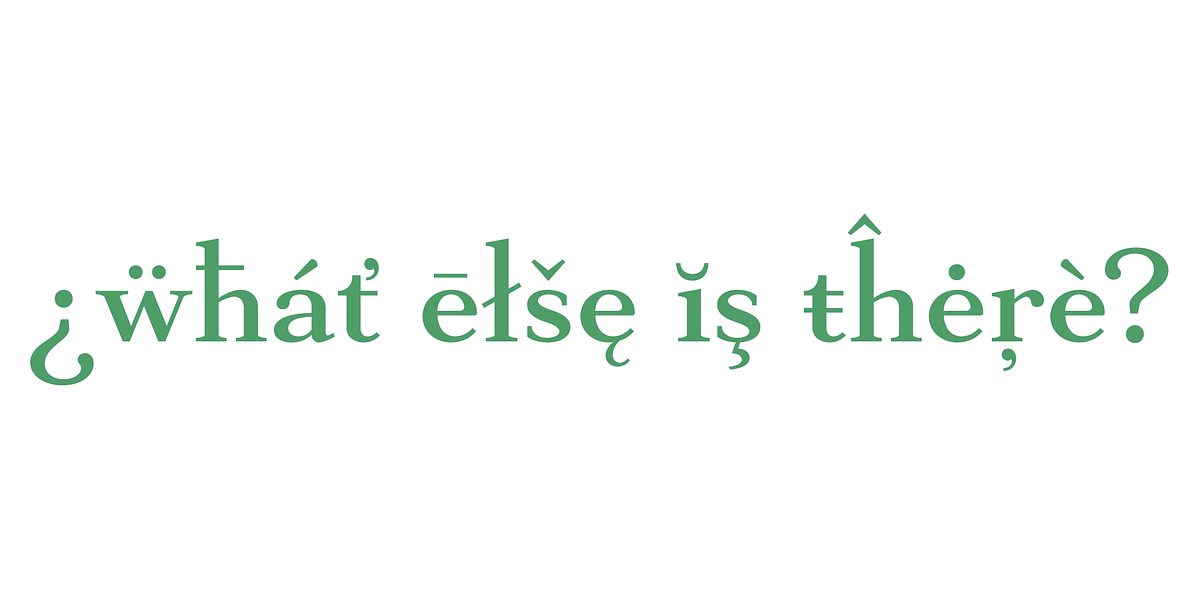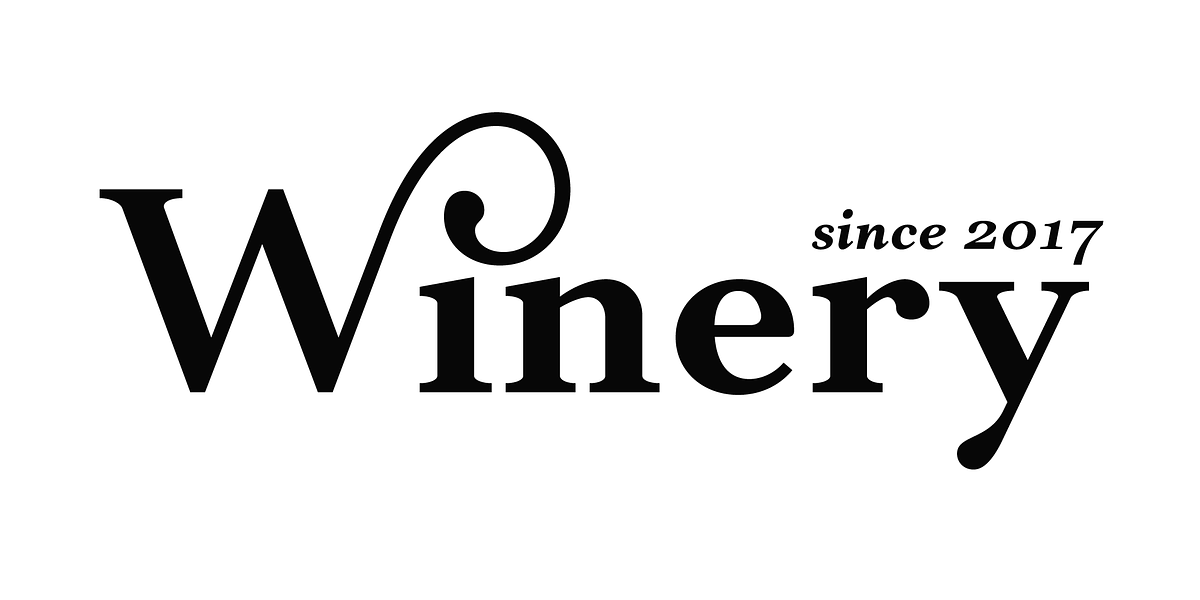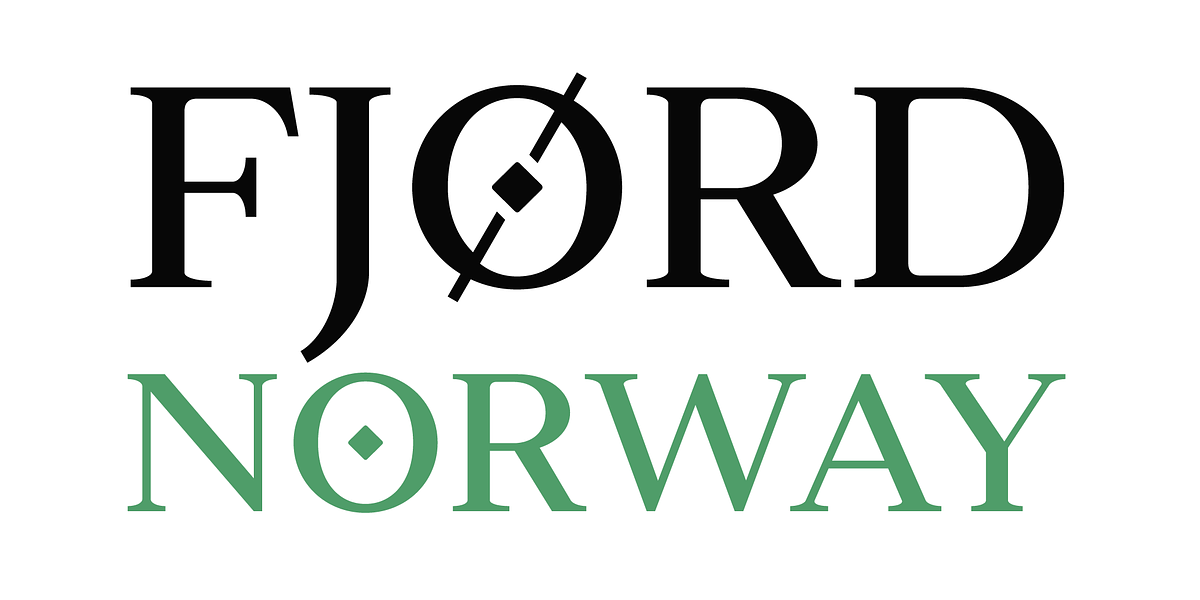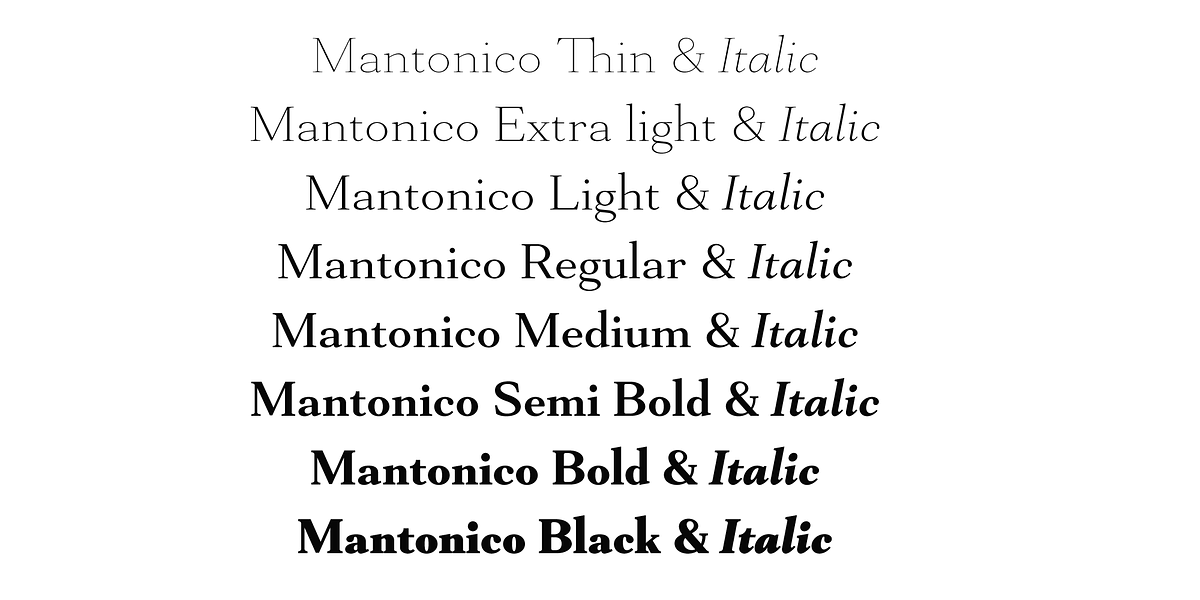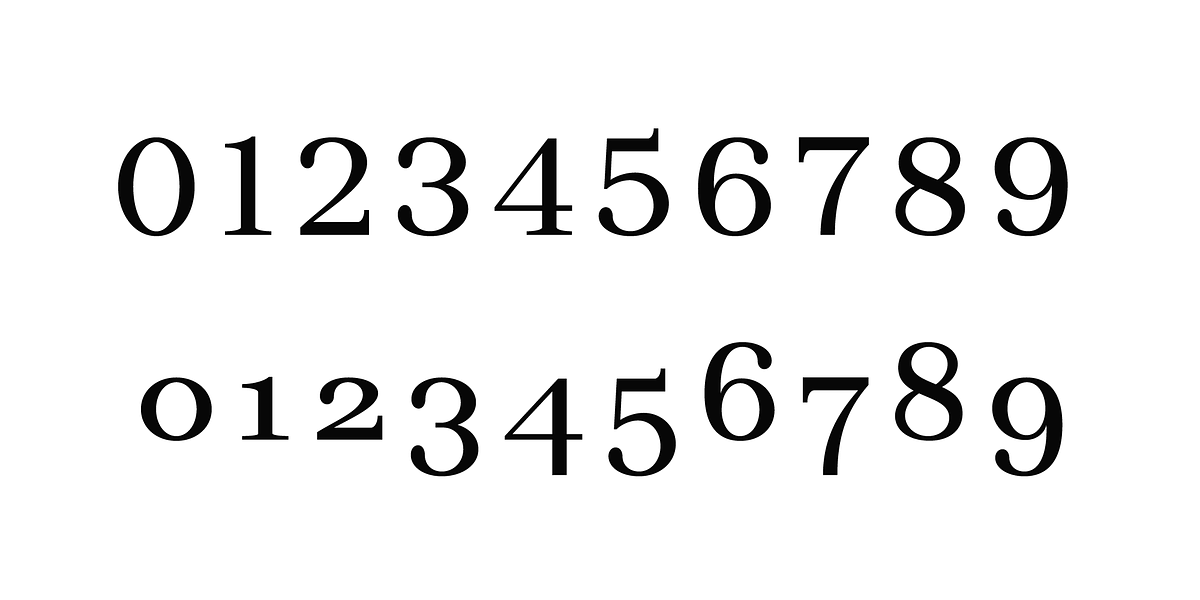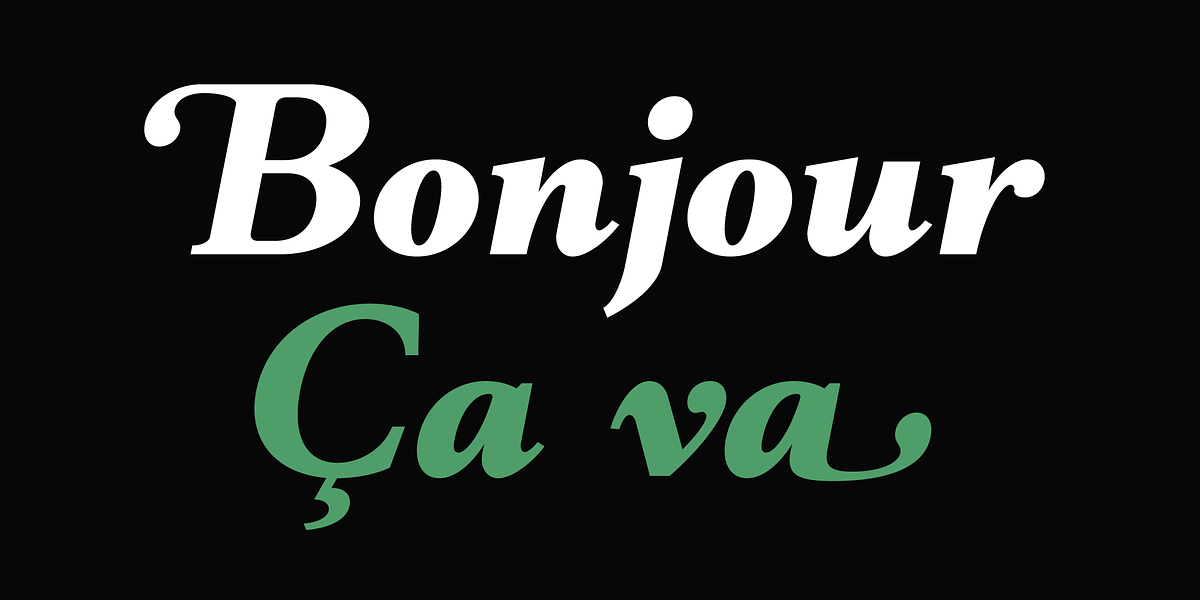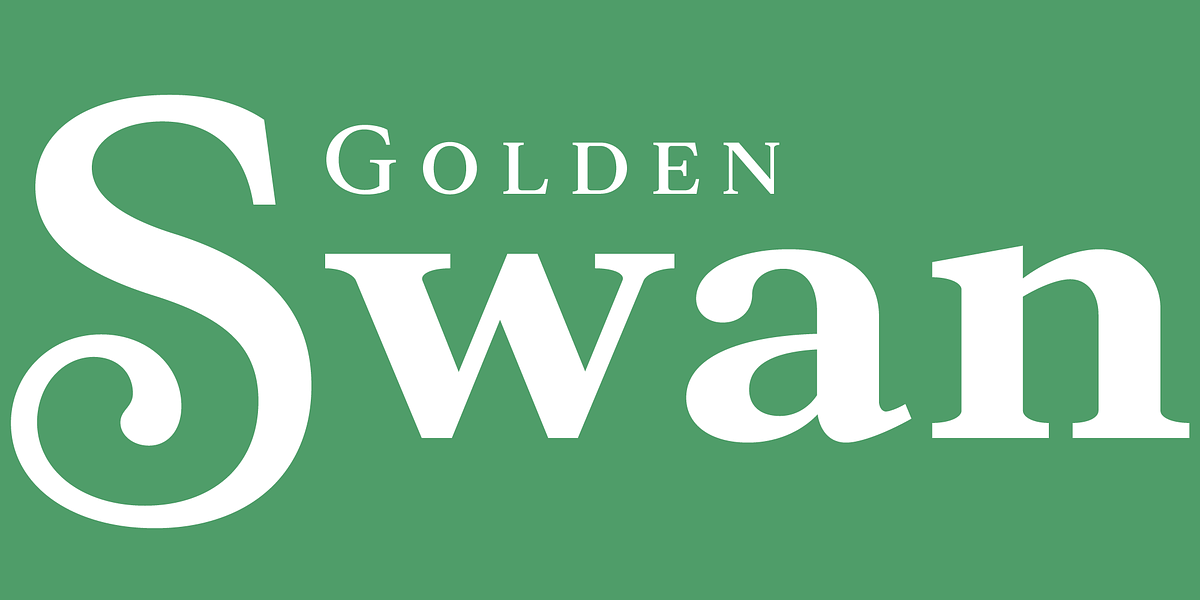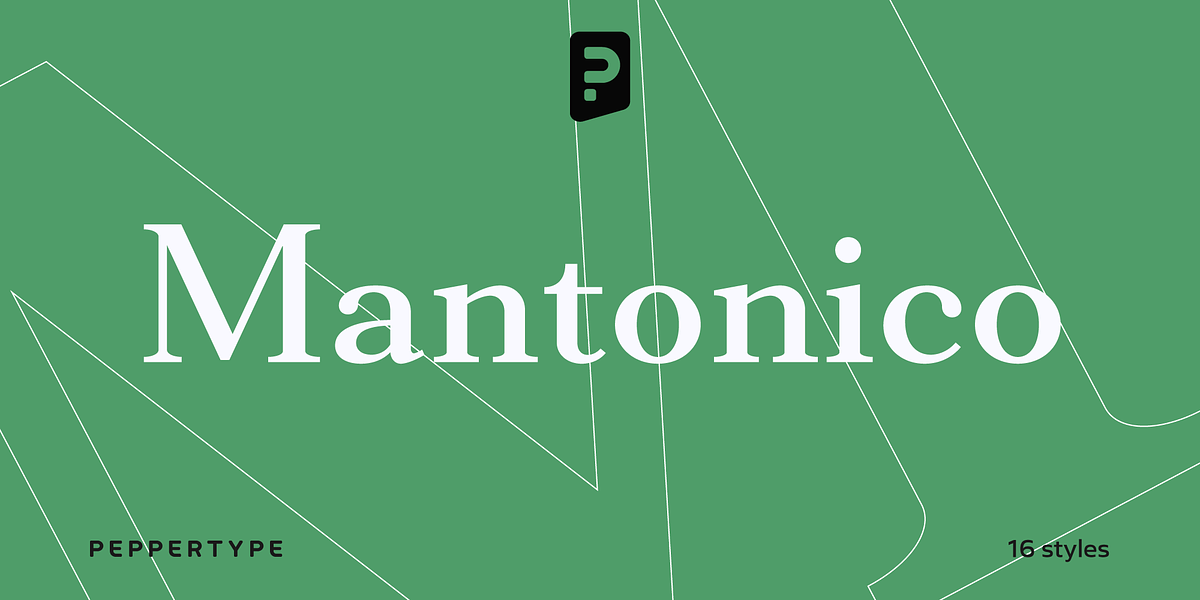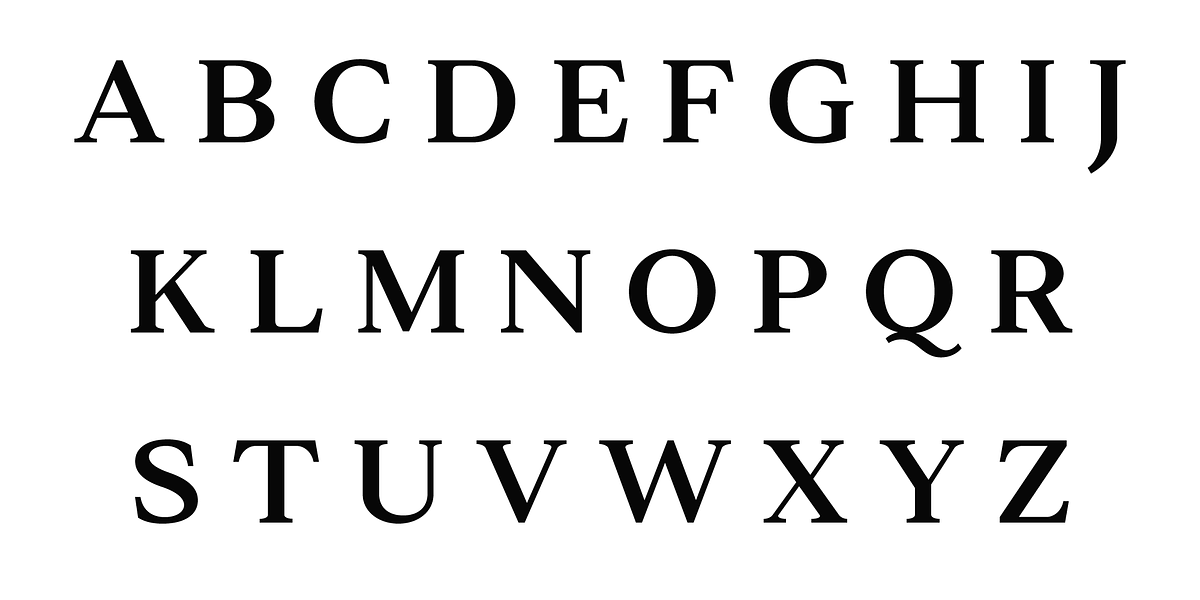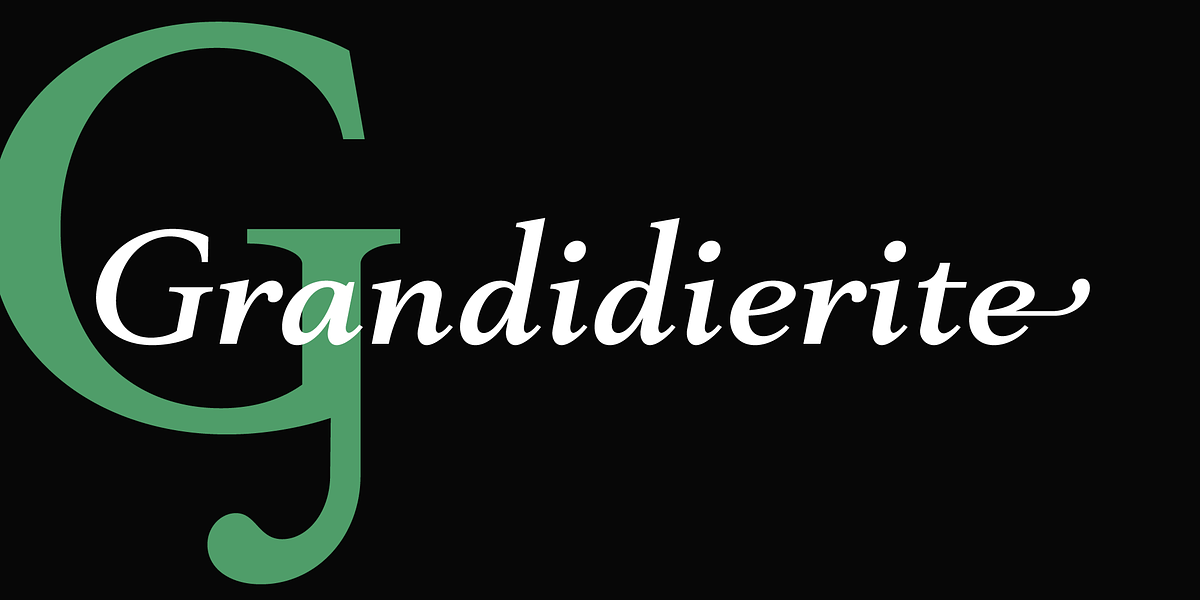
Mantonico
Mantonico is a transitional serif typeface characterized by its soft and friendly appearance. Its low x-height, wide proportions, and prominent terminals contribute to a unique texture well-suited for extended reading. The font family offers a broad range of weights, including italics designed for a fluid feel. Mantonico also features extensive language support and OpenType options such as small capitals, various digit sets, and over 300 swashed characters.